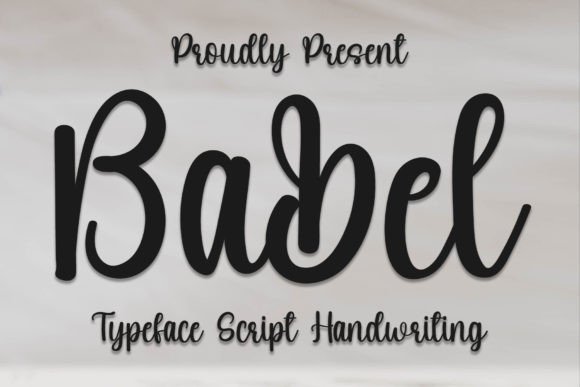
Introduce Babel Script like a captivating symphony of letters, a font family designed to orchestrate visual harmony in your designs. This robust script font is the conductor of attention, guiding the eyes through your projects with its bold and vibrant strokes. It's a typographic masterpiece, a visual anthem that elevates any design with its dynamic presence.
Babel Script is a symphony of style, seamlessly blending elegance and edge into a timeless melody. Its strokes evoke the energy of a sports arena, where passion and determination converge to create an unforgettable spectacle. Whether it's a sports design, team jersey, or league logo, Babel Script captures the essence of competition and triumph.
With Babel Script, your words take on a life of their own, dancing across the page with grace and athleticism. It's the perfect font for movie posters and documentaries, where every letter becomes a protagonist in the visual narrative. Its bold presence commands attention on book covers and headlines, demanding to be noticed and remembered.
Immerse yourself in the cinematic world of Babel Script, where your words become moving pictures and your designs become epics. Unleash your creativity and let Babel Script be your visual muse, transforming your projects into captivating masterpieces.